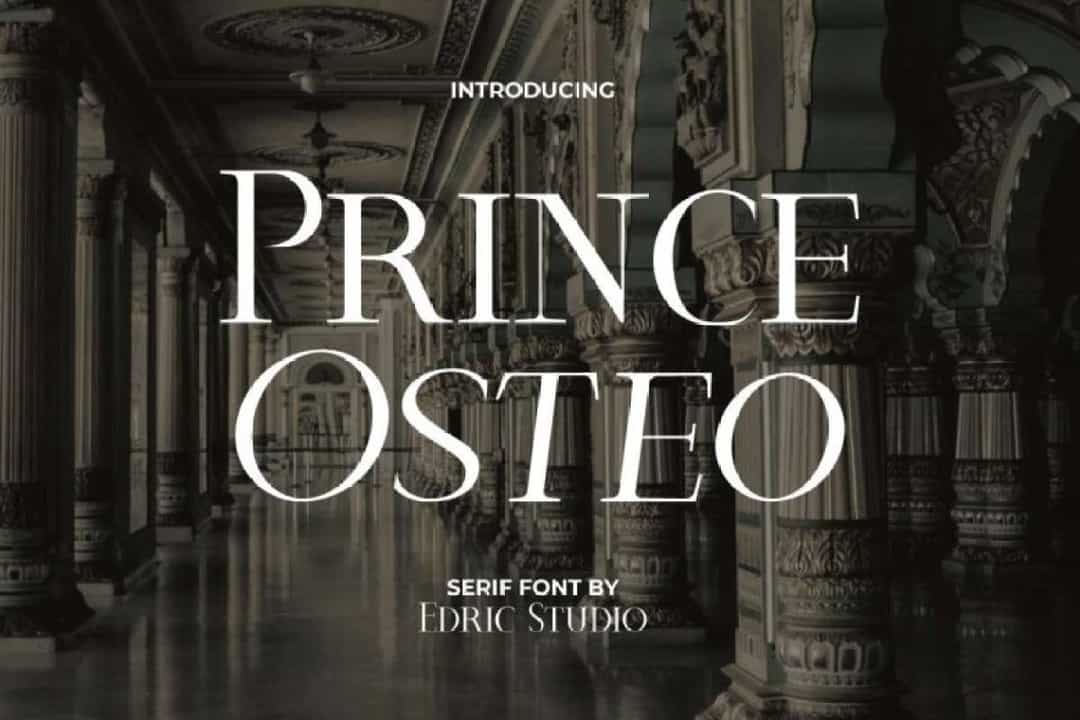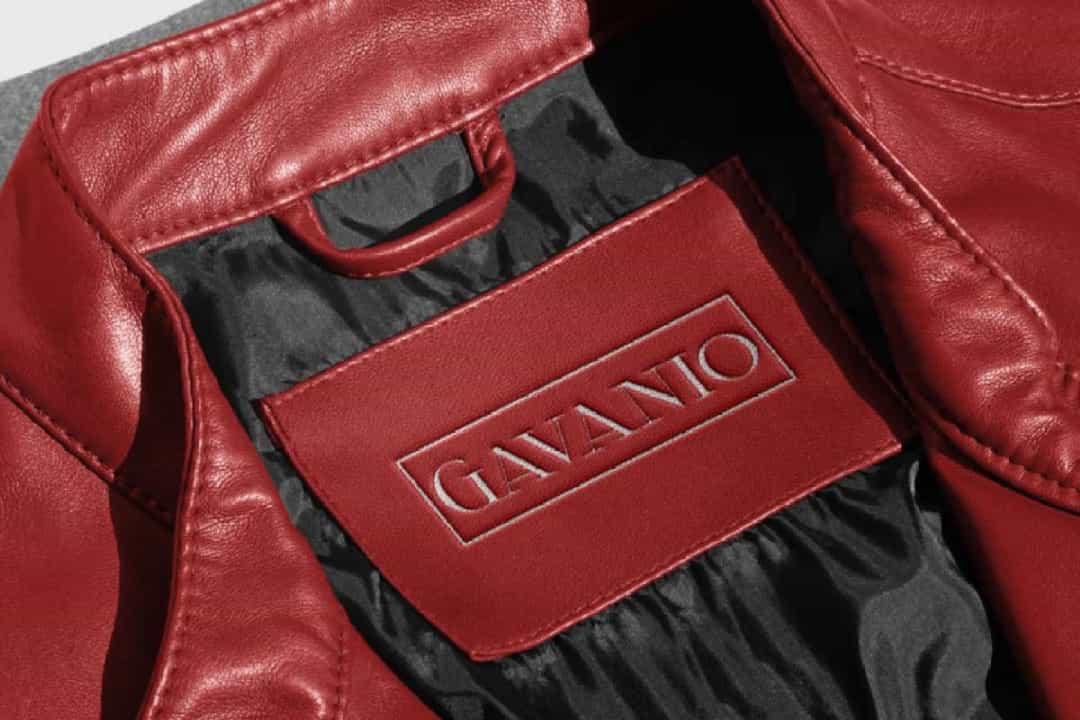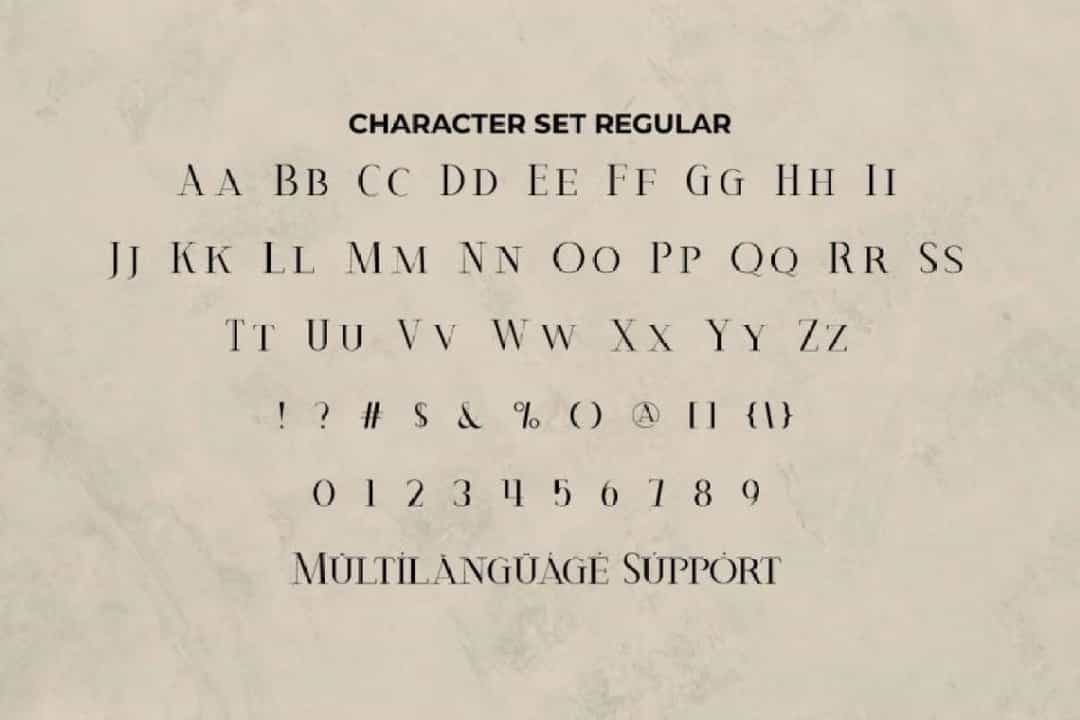
Prince Osteo Font is an informal serif typeface created by EdricStudio that features a sophisticated style. Combining both classic and modern elements, it’s ideal for any business setting; be it boutique exhibition, fashion brand furniture and interior design projects, homeware jewelry sales or restaurants as well as photography or real estate brokerage requiring stylish serif typefaces.